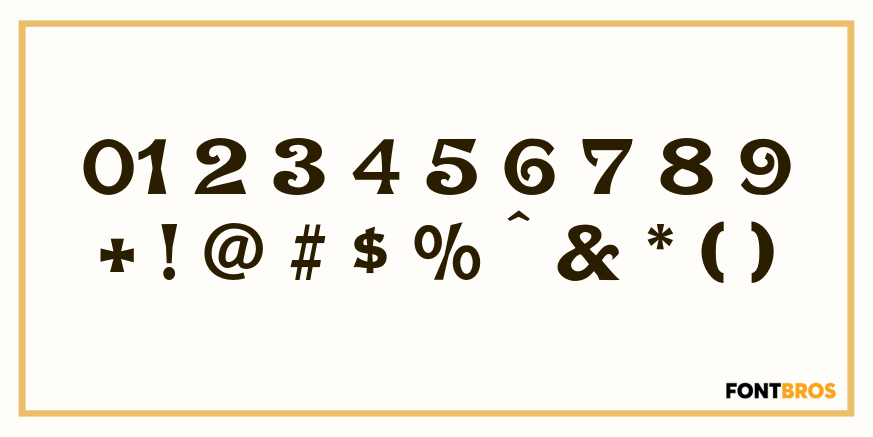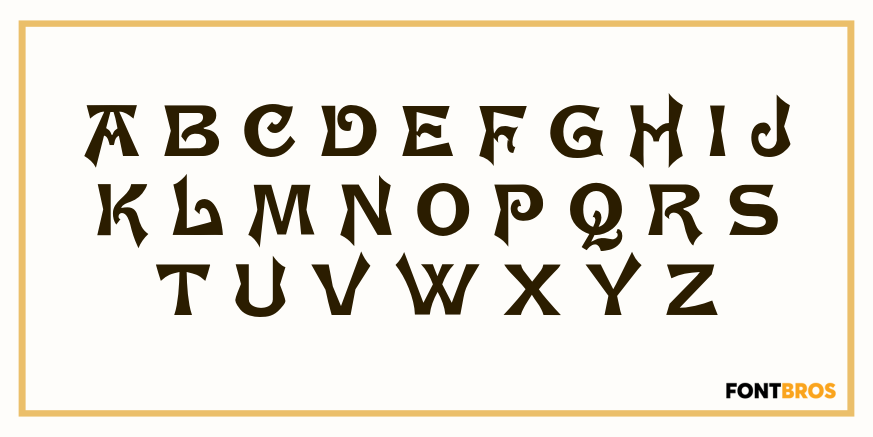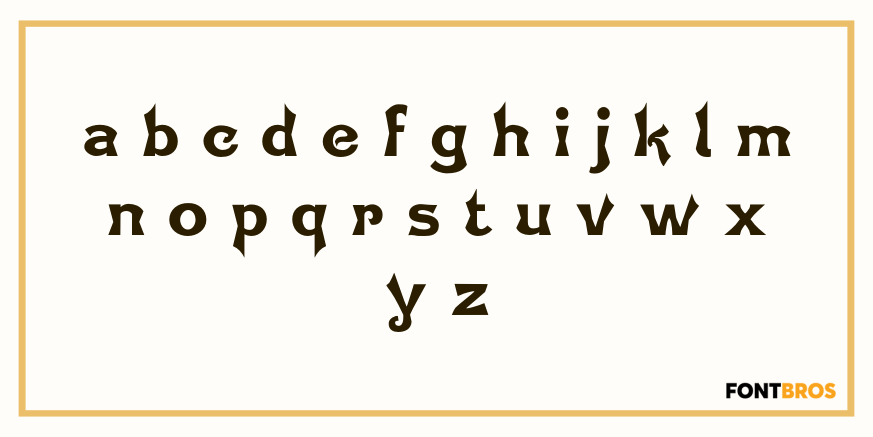
Brussels
The Stephenson Blake foundry in England, made two fonts, Flemish Expanded and Flemish Condensed. In our view, one was too wide, the other too narrow; so we redrew it and renamed it Brussels. Why not? Belgium is one of the few places where you may still hear Flemish spoken.
Brussels by Solotype